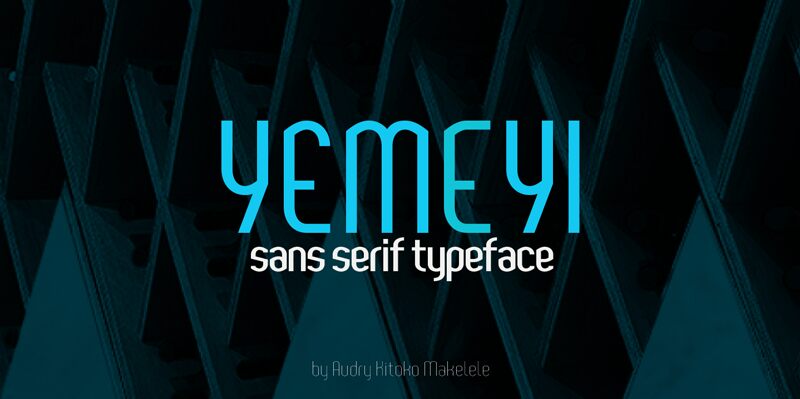
Yemeyi Bold Italic font is a modern and daring display font designed by Audry Kitoko Makelele. No matter the topic, this font will be an incredible asset to your fonts library, as it has the potential to elevate any creation.
Yemeyi Bold Italic